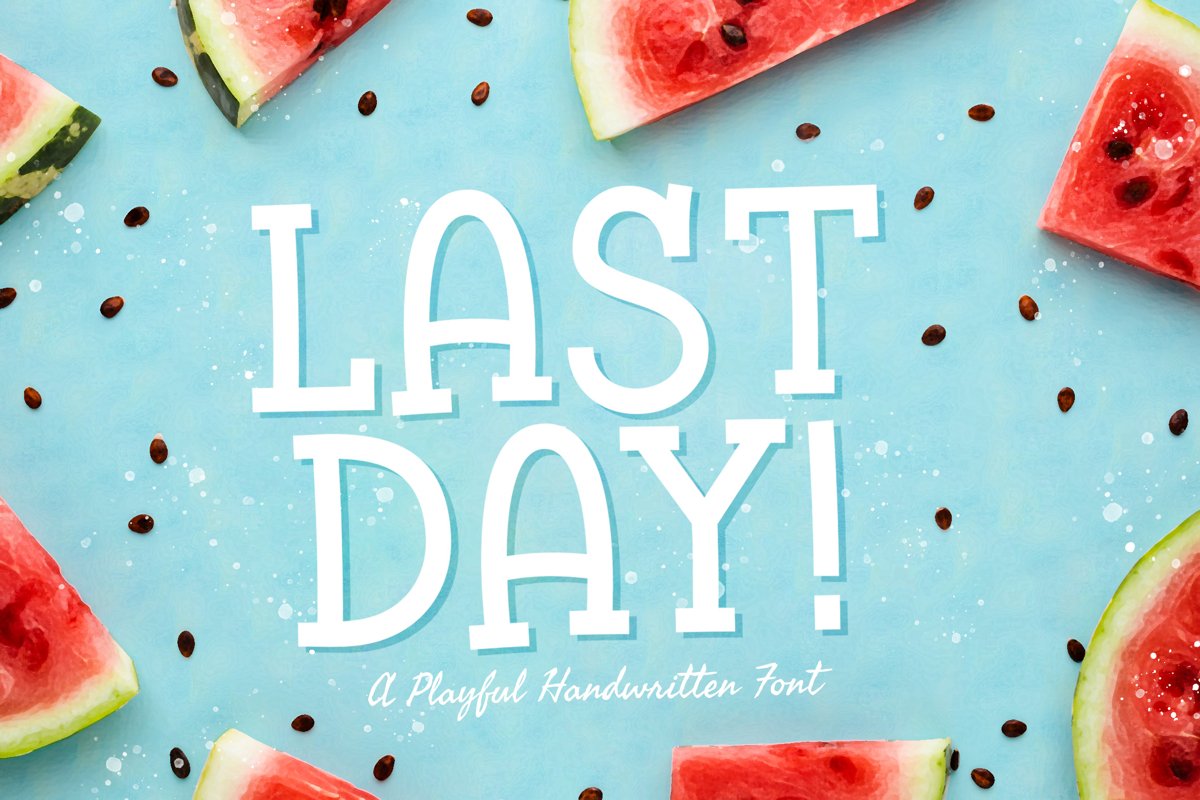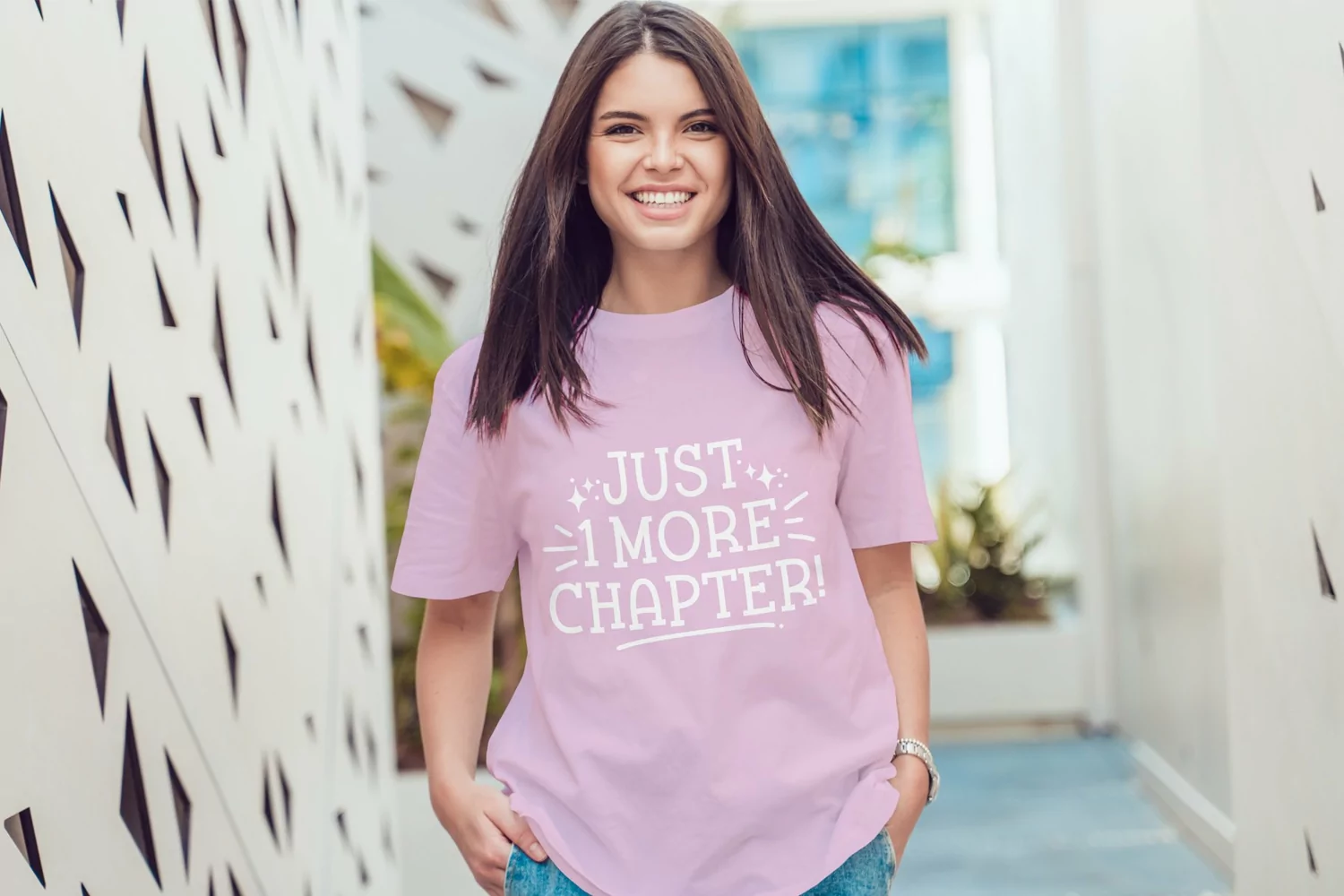
Last Day is a playful handwritten font. Perfect for display, poster, quotes, film, craft needs, book cover, business card, packaging, merchandise, branding, logo, logotype, header, title, and many more.